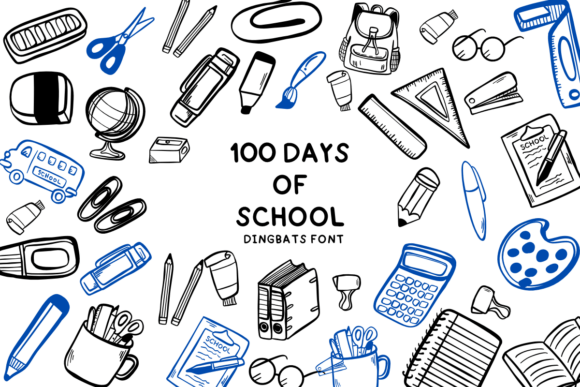
Bringing Creativity to the Classroom: 100 Days of School Doodle Font
As a teacher, have you ever found yourself brainstorming ways to make your lesson plans more engaging and fun for your students? Maybe you’ve spent hours searching for the perfect graphics or doodles to add a creative touch to your classroom displays. If so, you’re not alone! Many educators face this challenge, but what if you had a treasure trove of school-themed doodles at your fingertips?
Enter the 100 Days of School Doodle Font, a delightful and versatile collection of school-themed doodles perfect for celebrating milestones and enhancing educational projects. This font features playful illustrations of stationery, books, and classroom essentials, making it an essential resource for teachers, students, and parents alike. Whether you’re designing posters, banners, lesson plans, or scrapbooking, the 100 Days of School Doodle Font adds a creative touch that’s sure to delight.
100 Days of School Doodle Font Key Features
- Unique Hand-Drawn Design: The font features a playful, hand-drawn design with a doodle-like aesthetic, making it perfect for educational and creative projects.
- Customizable: The font includes 100 days of school-themed doodles, allowing users to customize their designs with fun and engaging illustrations.
- Editable: The font is fully editable, enabling users to make changes to the doodles and create unique designs.
- Perfect for Educational Projects: The font is specifically designed for educational projects, making it an ideal choice for teachers, students, and parents looking to create engaging and interactive content.
Designer Review: 100 Days of School Doodle Font
I recently had the chance to play around with the 100 Days of School Doodle Font, and I must say it’s a unique and quirky addition to any design project. ✨ One of the things that stands out is the casual, hand-drawn feel it gives to your text. It’s perfect for creating a playful, nostalgic vibe that’s reminiscent of school days.
Another great aspect of this font is its versatility. ✨ It can be used for a wide range of projects, from greeting cards to educational materials, and it’s even suitable for use in branding and marketing. The font is highly customizable, with many options for color, size, and layout, making it easy to get the look you want.
However, there are some limitations to keep in mind. ⚠️ The font may not be suitable for use in formal or professional settings, and it can be a bit difficult to read in certain contexts. Additionally, the font is not scalable, which means it may not look its best at very large or very small sizes.
Overall, I think the 100 Days of School Doodle Font is a fun and creative addition to any designer’s toolkit. It’s perfect for projects that require a playful, laid-back vibe, and it’s highly customizable to boot.
- Unique, hand-drawn feel
- Perfect for playful, nostalgic projects
- Not suitable for formal or professional settings
- Not scalable
The 100 Days of School Doodle Font is perfect for:
- Creating fun and engaging classroom decorations.
- Designing educational materials such as worksheets and posters.
- Adding a personal touch to student projects and presentations.
Remember to have fun and be creative when using the 100 Days of School Doodle Font!
We recommend using the 100 Days of School Doodle Font at a minimum size of 14 points and a line height of 1.5 to 2 times the font size. This will help ensure that the text is legible and the font’s playful characteristics are fully apparent.